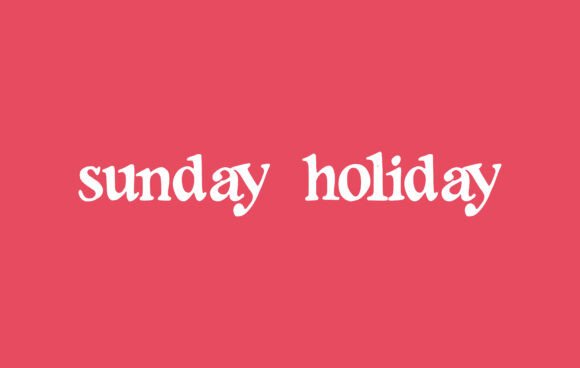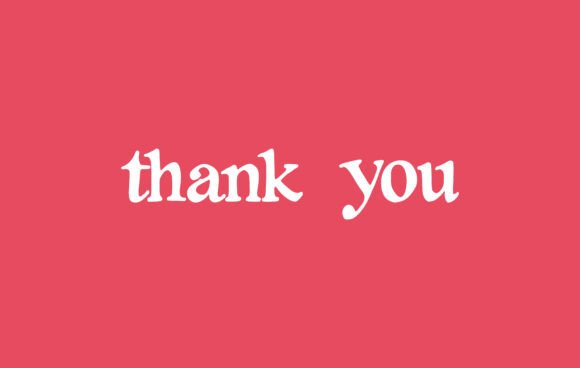
Discover the Charm of Hamza Font: Elevate Your Designs with a Romantic Touch
In the world of typography, fonts play a crucial role in bringing creative ideas to life. Among the numerous fonts available, Hamza Font stands out for its unique blend of authenticity and romanticism. Designed to capture the hearts of designers and crafters, Hamza Font is an excellent choice for those seeking to add a touch of elegance and sophistication to their projects.
The Essence of Hamza Font
Hamza Font is an expertly crafted typeface that exudes a romantic touch, making it perfect for designs that require a sense of warmth and intimacy. Its authentic feel ensures that it can be used in a wide range of applications, from traditional to modern designs. Whether you’re working on a magazine headline, social media post, branding material, wedding invitation, or card, Hamza Font is sure to impress.
Key Features of Hamza Font
- Legibility: One of the standout features of Hamza Font is its exceptional legibility. Its clear and well-defined letterforms make it easy to read, whether used as title text or body text.
- Versatility: Hamza Font is incredibly versatile, suitable for various design projects, including:
- Magazine headlines
- Branding materials
- Wedding invitations
- Cards
- Elegance: The font’s romantic touch adds a level of sophistication and elegance to any design, making it perfect for projects that require a touch of refinement.
Why Choose Hamza Font?
With so many fonts available, why should you choose Hamza Font for your next project? Here are a few compelling reasons:
- Unique Style: Hamza Font boasts a distinctive style that sets it apart from other fonts. Its romantic touch and authentic feel ensure that your designs will stand out from the crowd.
- High-Quality: Hamza Font is a high-quality font that is designed to deliver exceptional results. Its clear and crisp letterforms ensure that your designs will look professional and polished.
Tips for Using Hamza Font
To get the most out of Hamza Font, here are a few tips to keep in mind:
- Experiment with Sizes: Hamza Font looks great in various sizes, from large headlines to smaller body text. Experiment with different sizes to find the perfect balance for your design.
- Pair with Other Fonts: Don’t be afraid to pair Hamza Font with other fonts to create a unique and visually appealing design. Its versatility makes it easy to combine with other typefaces.
- Use for Branding: Hamza Font is an excellent choice for branding materials, such as logos, business cards, and letterheads. Its elegant and sophisticated feel ensures that your brand will make a lasting impression.
In conclusion, Hamza Font is an exceptional typeface that offers a unique blend of authenticity and romanticism. Its legibility, versatility, and elegance make it an excellent choice for designers and crafters seeking to elevate their creative ideas. Whether you’re working on a magazine headline, social media post, branding material, wedding invitation, or card, Hamza Font is sure to impress. So why not give it a try and discover the charm of Hamza Font for yourself?